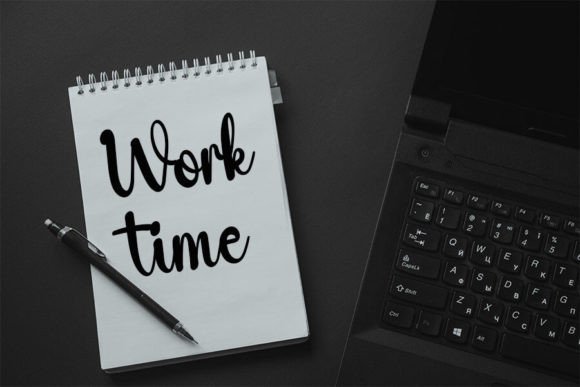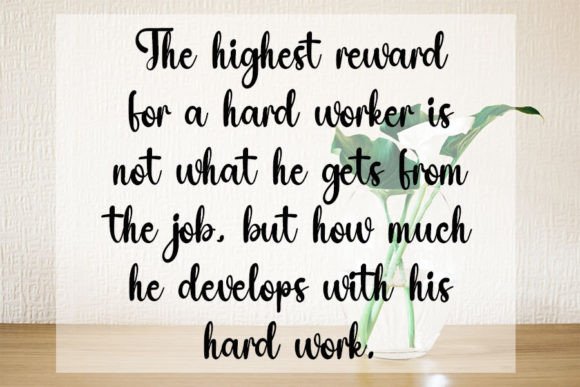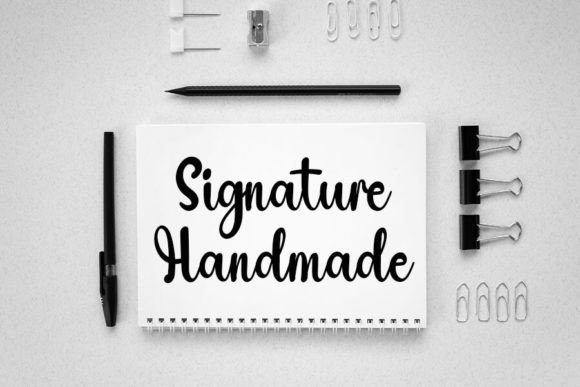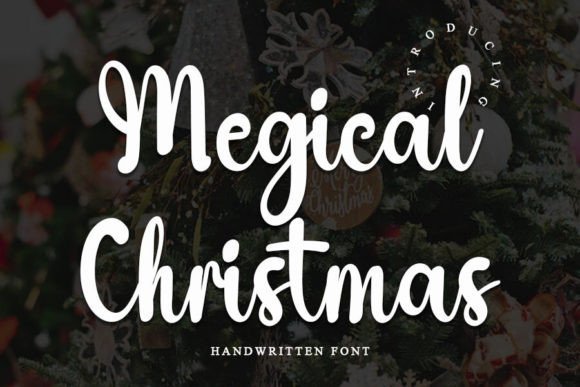
Introduction to Megical Christmas Font
Megical Christmas is a neat and beautiful handwritten font described by an elegant touch, perfect for your favorite projects.
Fall in love with its incredibly distinct and timeless style, and use it to create spectacular designs .
Megical Christmas Font offers exceptional quality and versatility, making it a valuable addition to your design toolkit. Whether you’re creating for personal projects or commercial use, Megical Christmas Font delivers professional results.